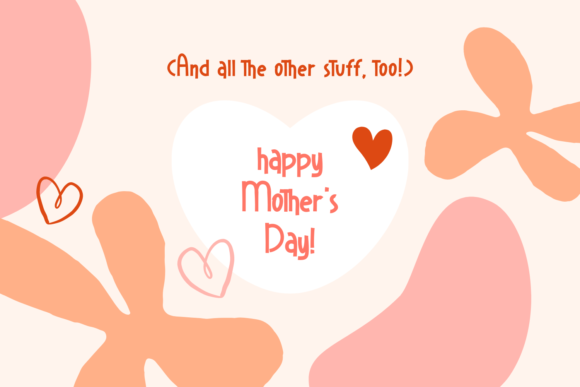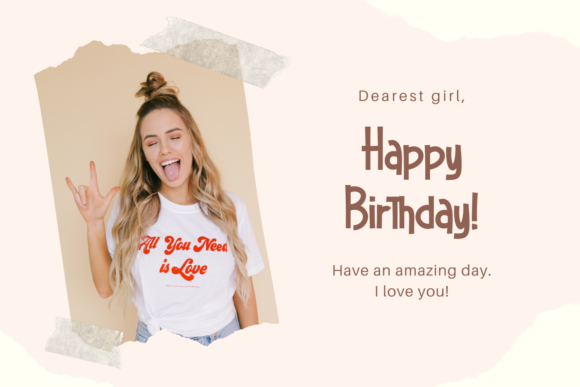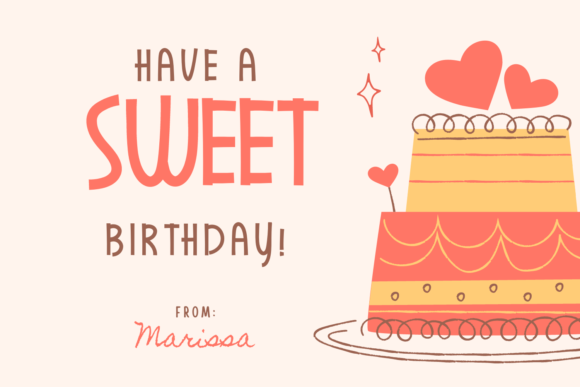
Bihunts is a fun, friendly and cool display font.
It embodies playfulness and authenticity and is the perfect choice for any children activity or school project .